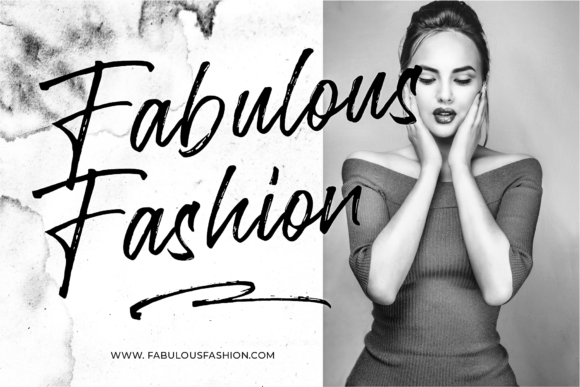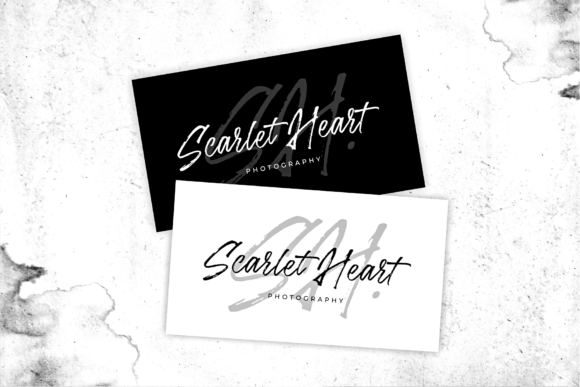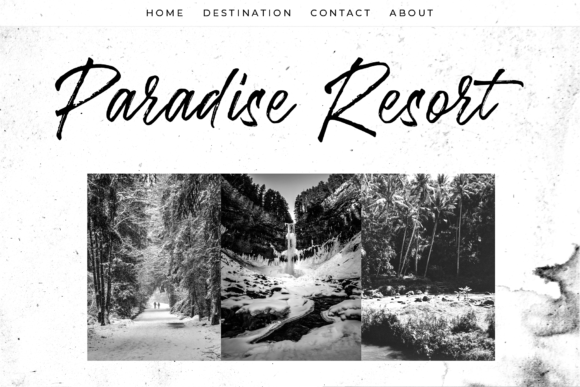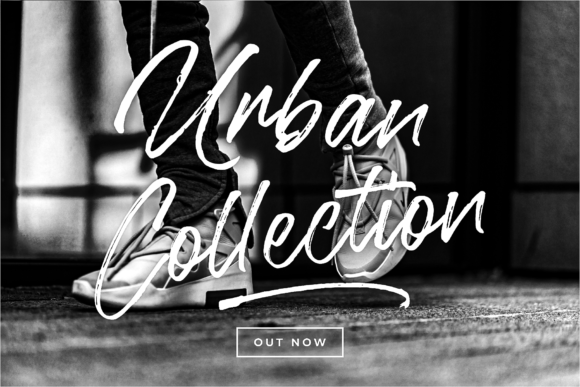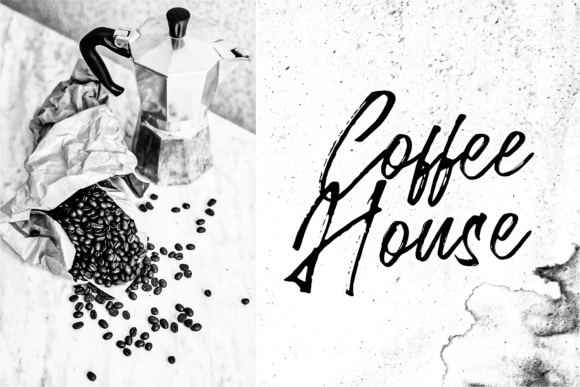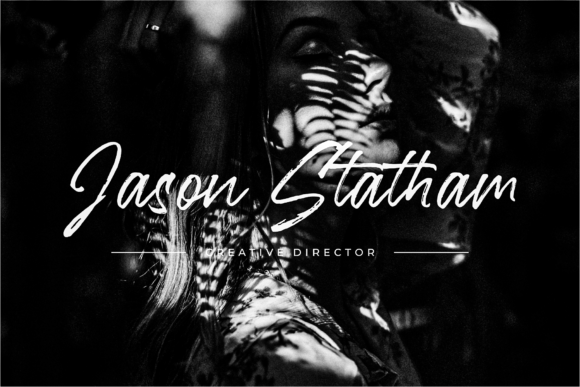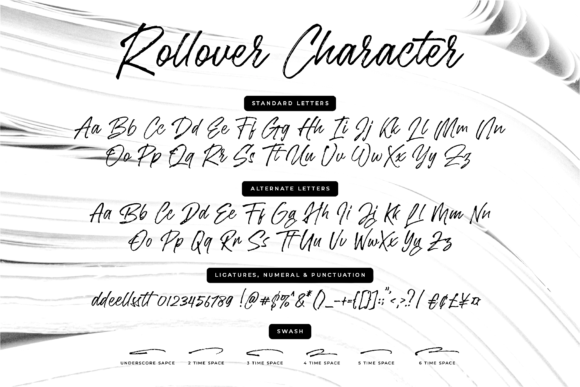
HomeScript FontsRollover Font Script Fonts Rollover Font FacebookXPinterestWhatsApp Rollover Font Poster 2 Rollover Font Poster 3 Rollover Font Poster 4 Rollover Font Poster 5 Rollover Font Poster 6 Rollover Font Poster 7 Rollover Font Poster 8 About Rollover Font Rollover is a strong, bold and authentic script with gorgeous swashes. Get inspired by its personal look & feel. DOWNLOAD ON CREATIVE FABRICAThis font is sold and delivered by Creative Fabrica. Font Canyon may earn a commission if you buy through this link. People also explored Aside Font Moda Font Newest Oldest Font Alisa Font Loituma Font Hedgehog Hans Team Work Font The Quick Font Anyhow Font 312 0 TagsRollover Font Previous articleMadalina FontNext articleHoneymoon Font LEAVE A REPLY Cancel reply Comment: Please enter your comment! Name:* Please enter your name here Email:* You have entered an incorrect email address! Please enter your email address here Website: Save my name, email, and website in this browser for the next time I comment. Personal Use Free Sybil Green Personal Use Free Read more about this font Frozdotre Personal Use Free Read more about this font Abberancy Personal Use Free Read more about this font Fat Max Personal Use Free Read more about this font BLOG Using Fonts in Digital Marketing: Tips to Strengthen Your Brand Identity In the realm of digital marketing, every visual element plays a crucial role in shaping a brand's identity, and fonts are no exception. The... Modern Sans-Serif Fonts That Brands Love in 2025 The 10 Best Handwriting Fonts to Add Personality to Your Designs Free vs Paid Fonts: Why Investing in Premium Fonts Is Worth It